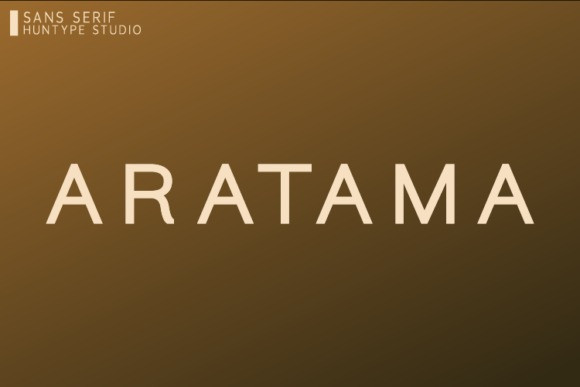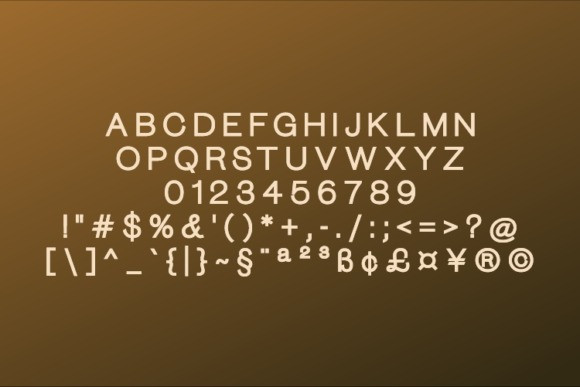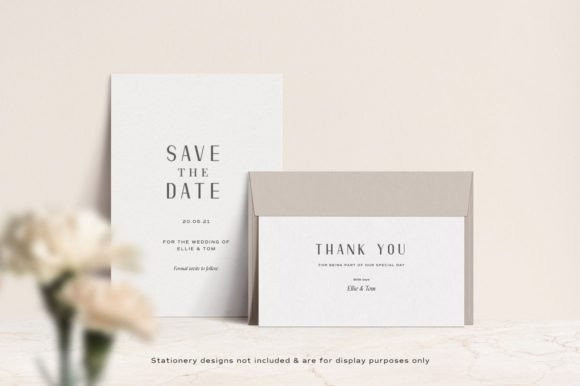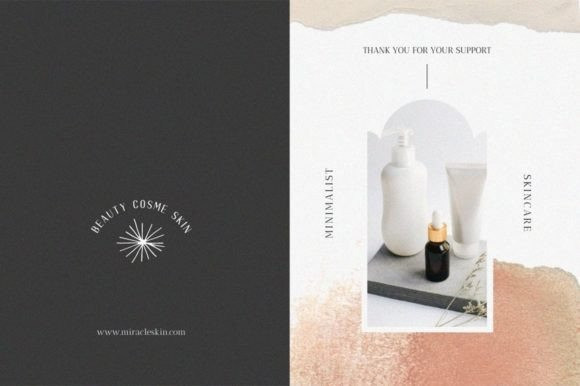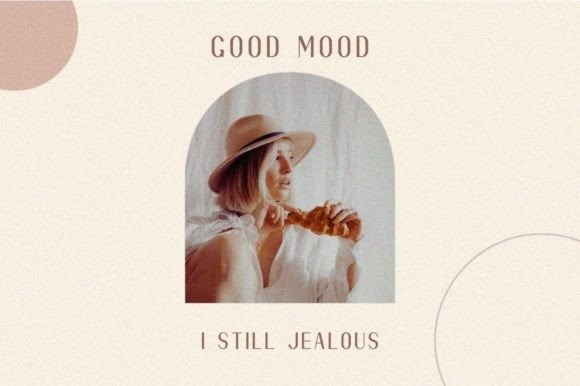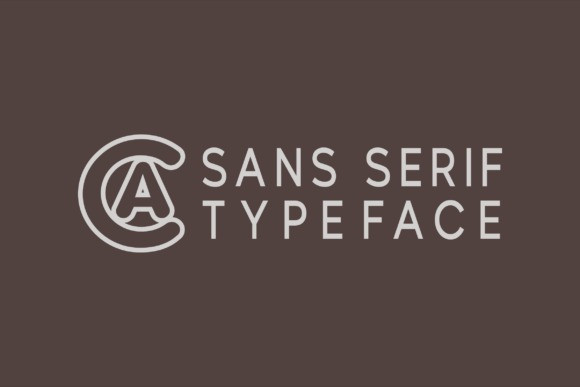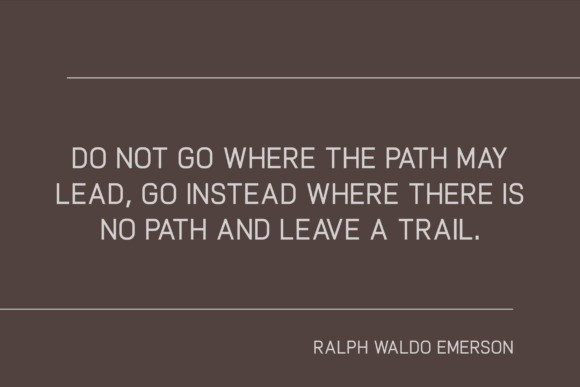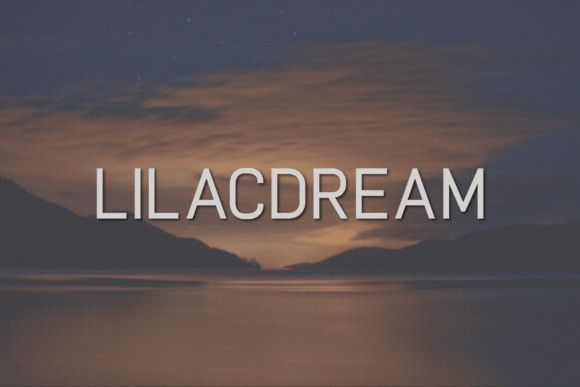
Lilacdream Font
Lilacdream Font, a modern, classy sans serif typeface. A sans serif typeface that contains upper characters, number 0-9 and a range of punctuation and symbols. An extremely versatile font, perfect for logos, weddings, invitations, quotes, advertisements, print, magazines, and more!